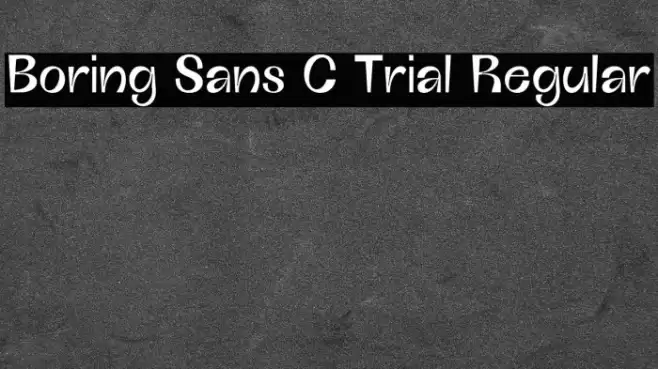
Boring Sans C Trial Regular Font
Boring Sans C Trial Regular Description
This font features a playful and quirky design, characterized by its unique and slightly irregular shapes. The uppercase letters have a bold presence with a slight slant, adding a dynamic feel. The lowercase letters maintain a consistent style, with rounded edges and a whimsical touch. The numerals and special characters are designed to match the overall playful aesthetic, making them suitable for creative and informal projects. The font's distinct personality makes it stand out, offering a fresh take on traditional sans-serif styles.
A playful and quirky sans-serif font with a dynamic and whimsical style from Regular fonts.
- Proposed Projects: Ideal for children's books, playful branding, creative posters, and informal invitations.
- Use Case: Headlines, Logos, Creative projects